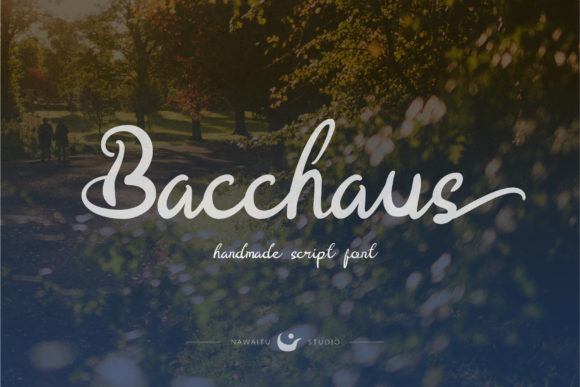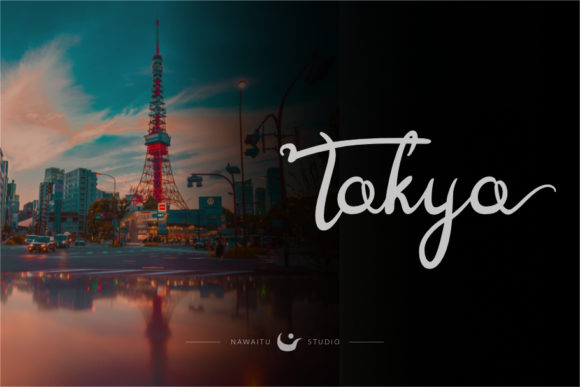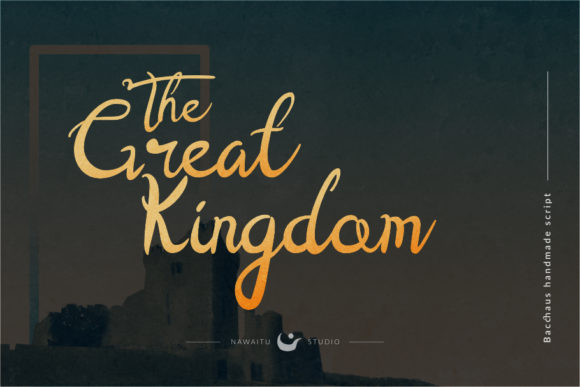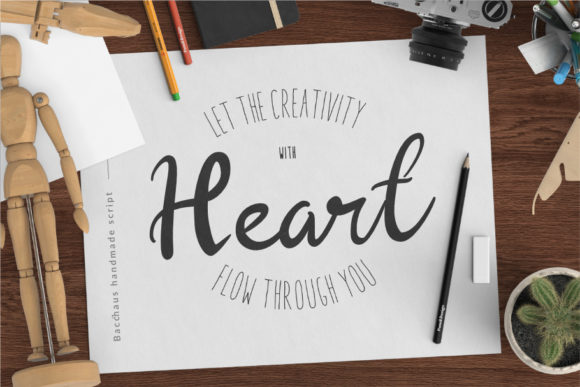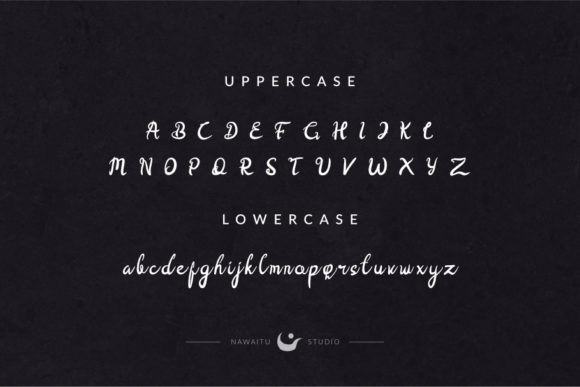
Bacchaus Script Font
About Bacchaus Script Font
The Bacchaus is a classy script font. It has an amazing handwritten touch which will add personal charm to every design.
It’s perfect for branding projects, homeware designs, product packaging – or simply as a stylish text overlay to any background image.